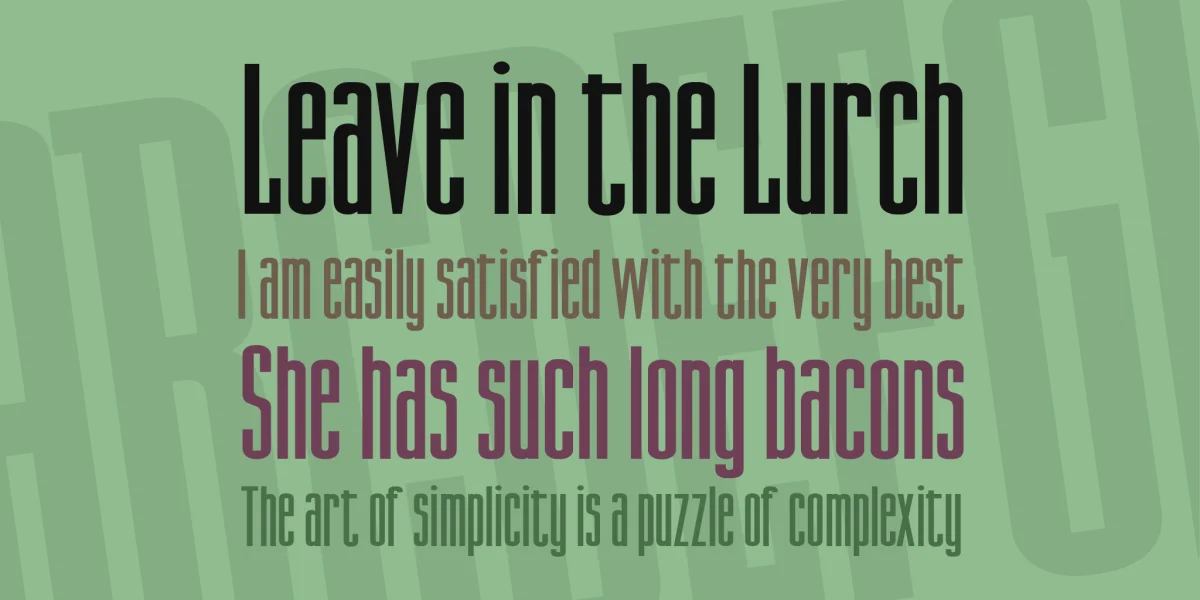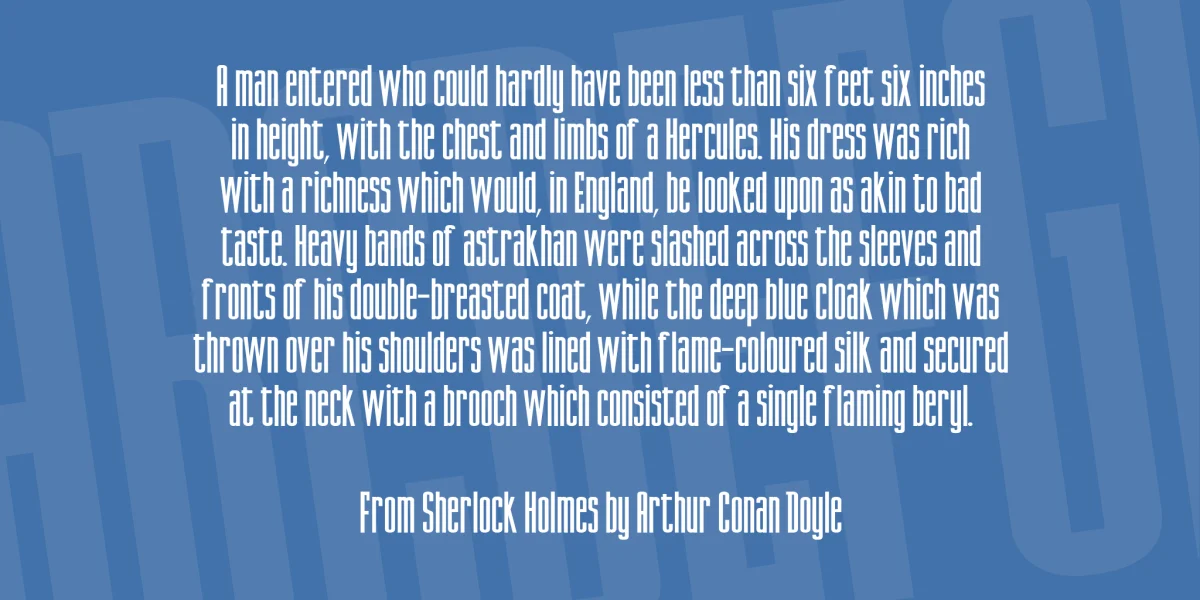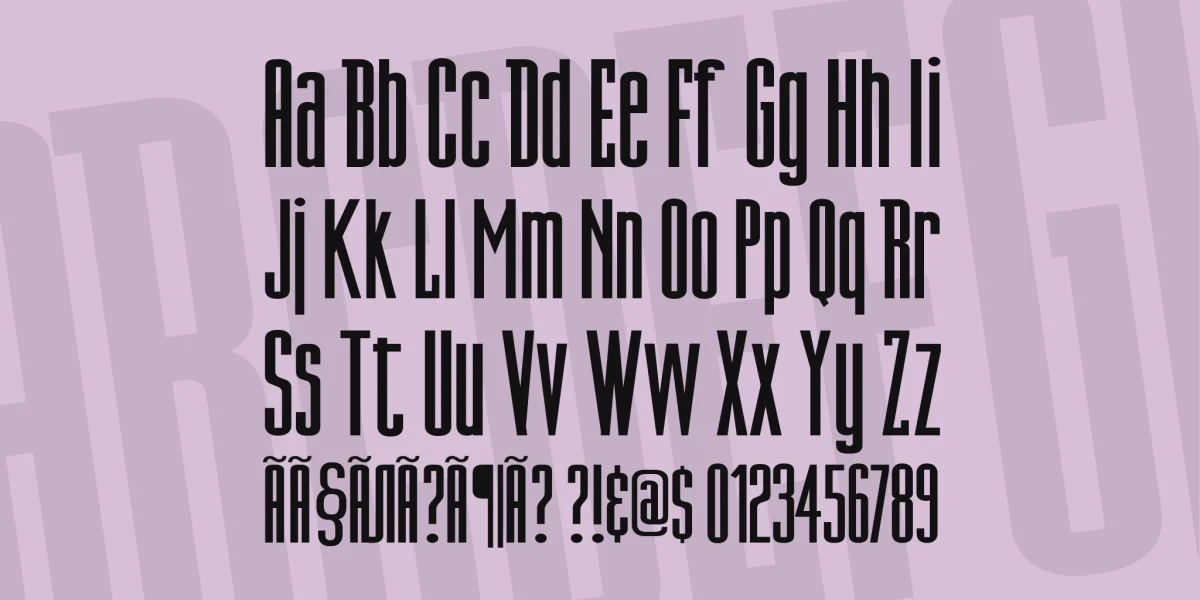
By popular demand, a font based on the titling font used in the seminal pop-psychology textbook, "Dianetics: The Modern Science of Mental Health". Includes lowercase letters, although these are of a similarly decorative character and thus not suitable for body text (on the other hand, eminently suitable for posters and signage). Note: the author of this font in no way endorses or suggests the use of "Dianetics: The Modern Science of Mental Health", more specifically, the post-1950 editions, which have been heavily modified and are not fit for purpose.